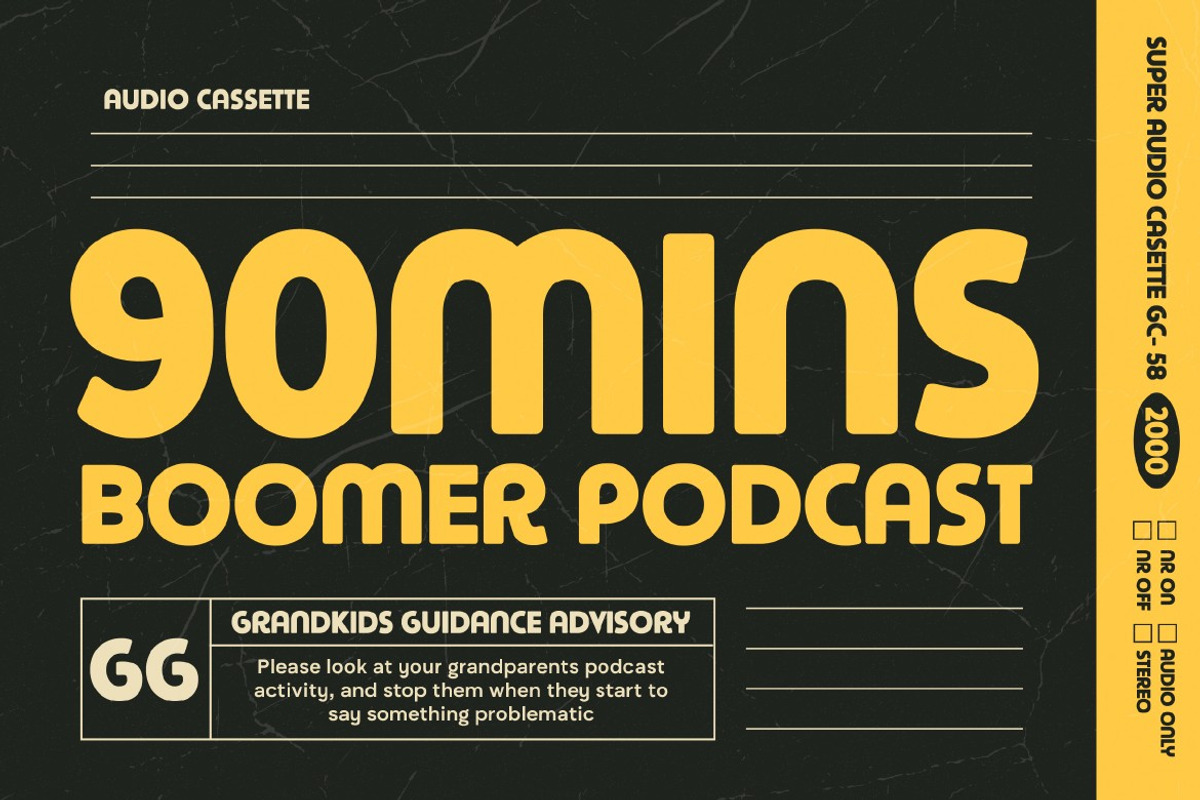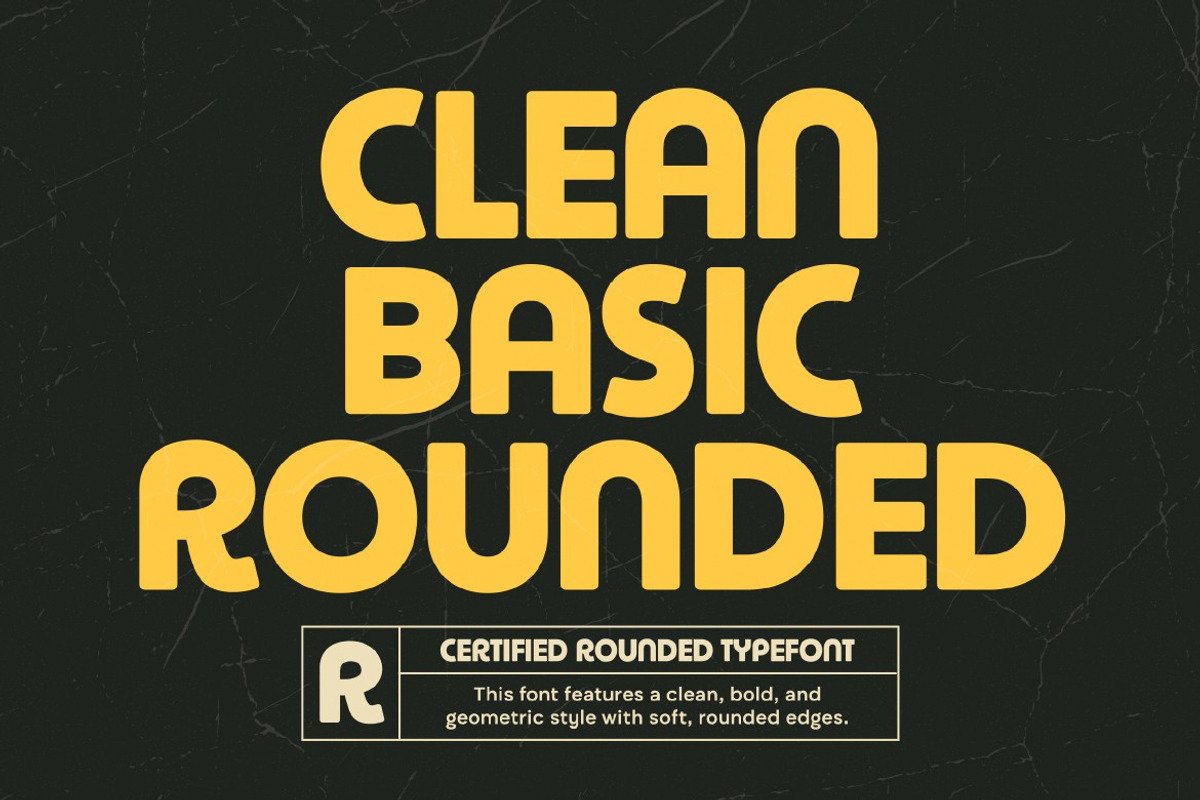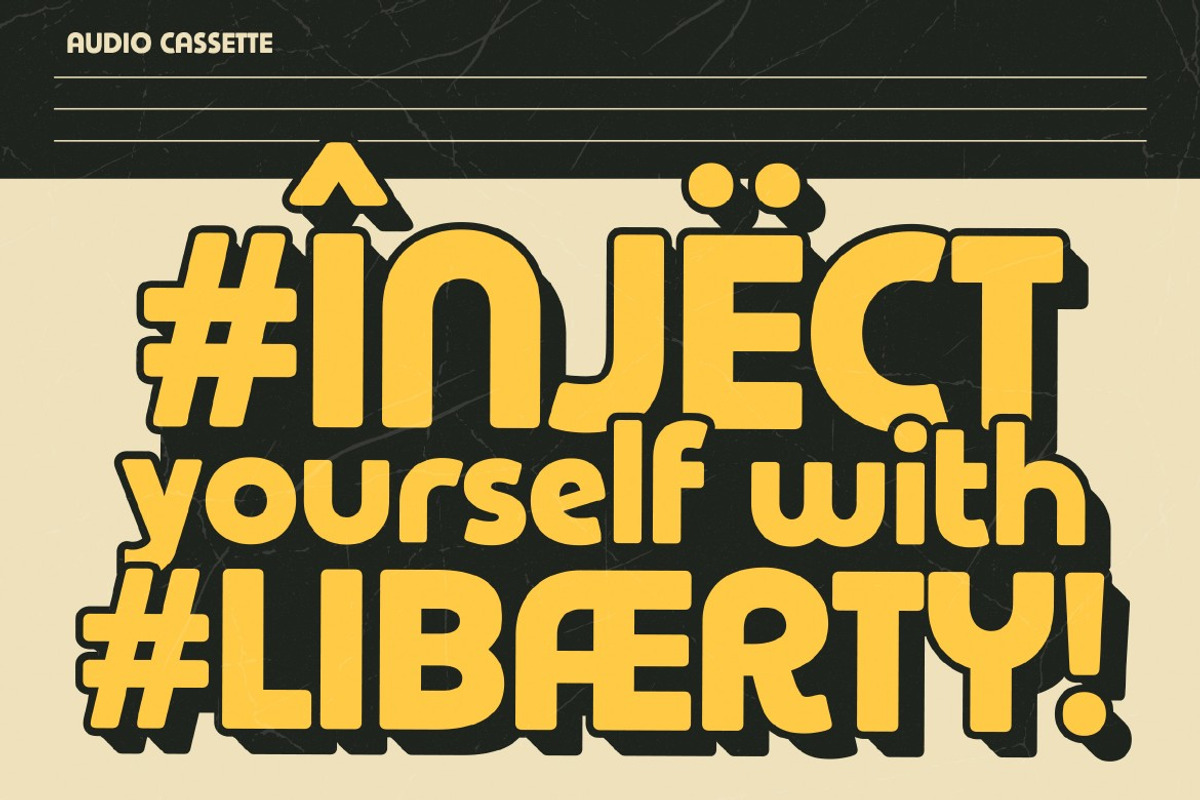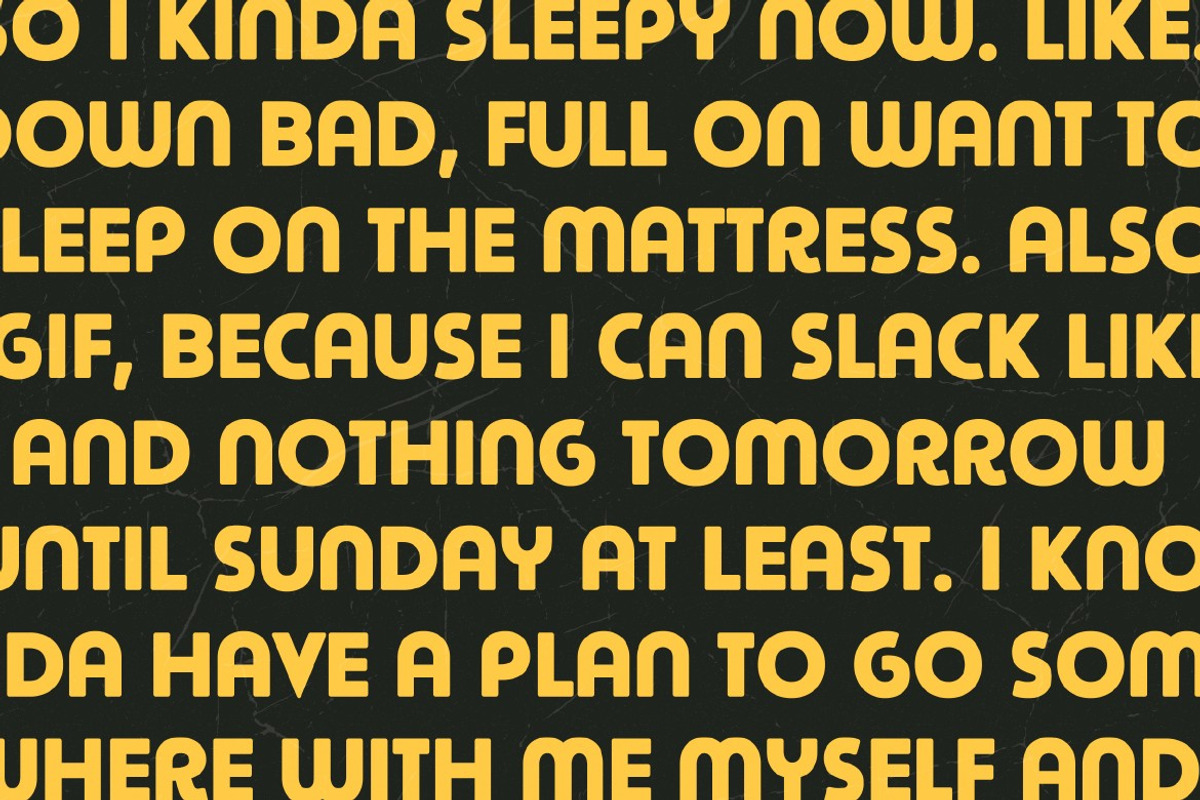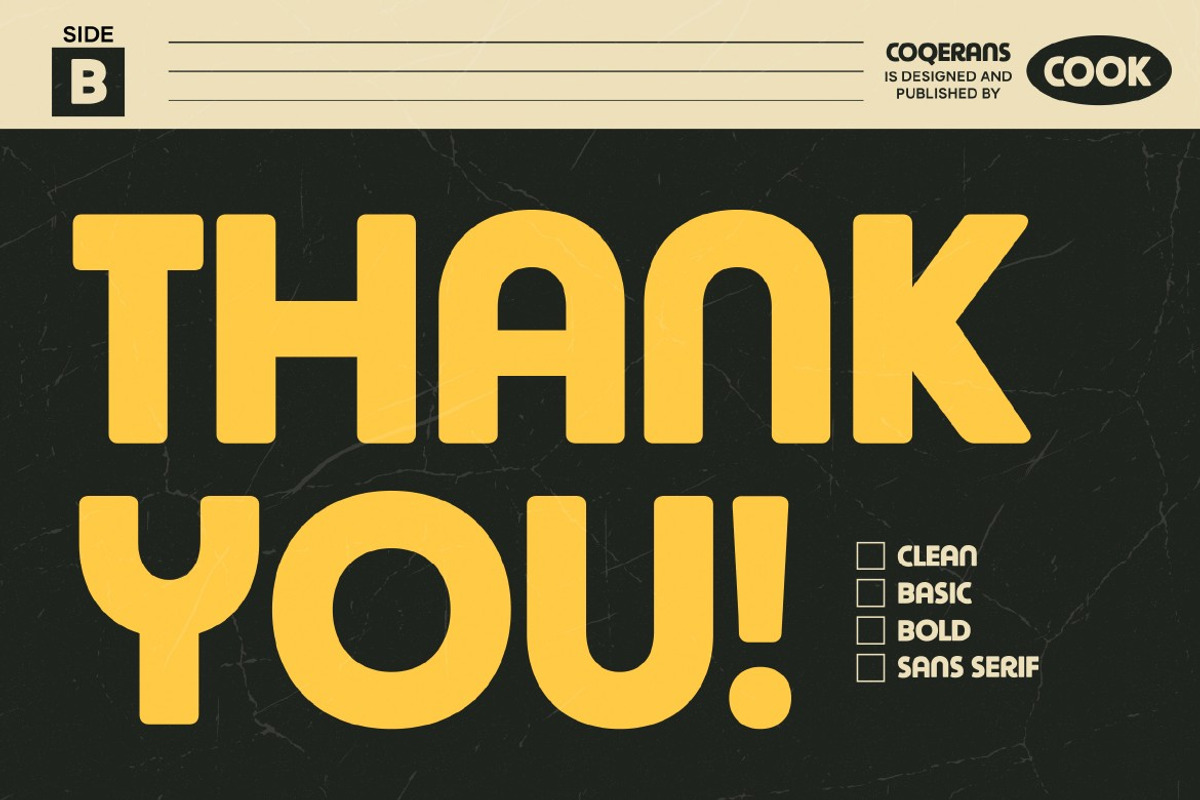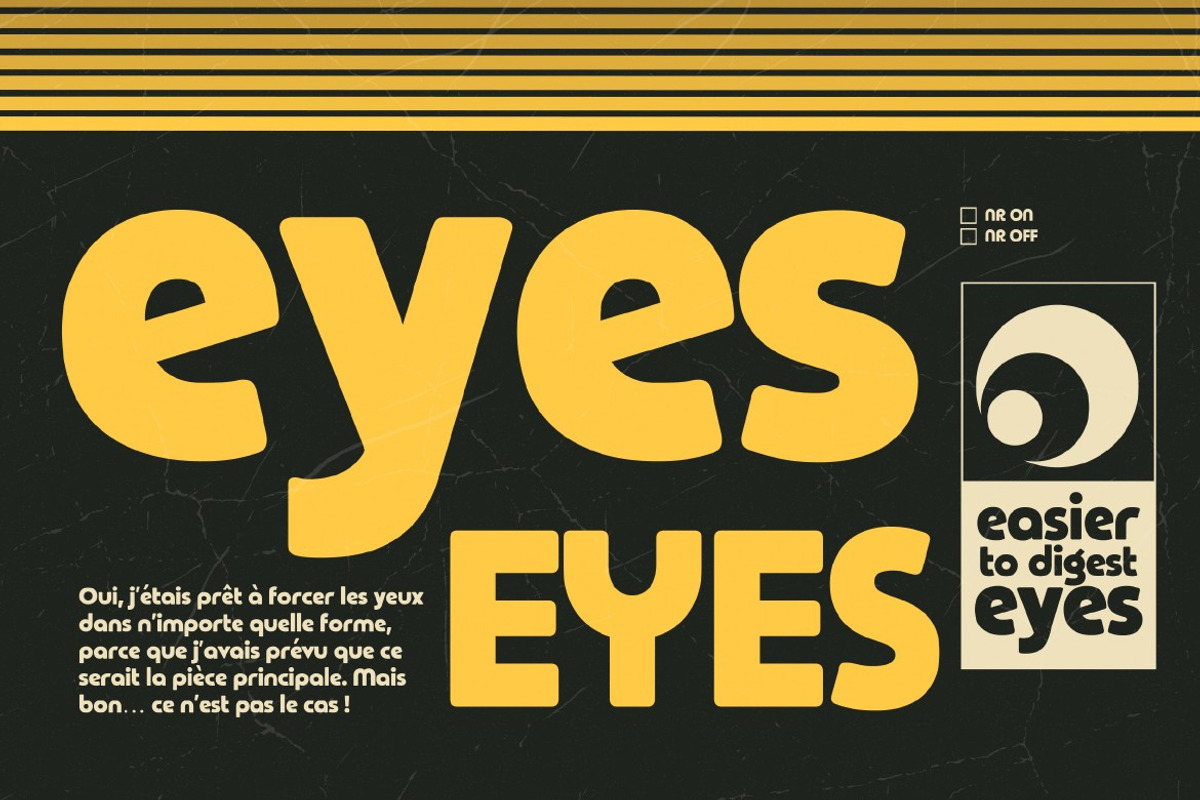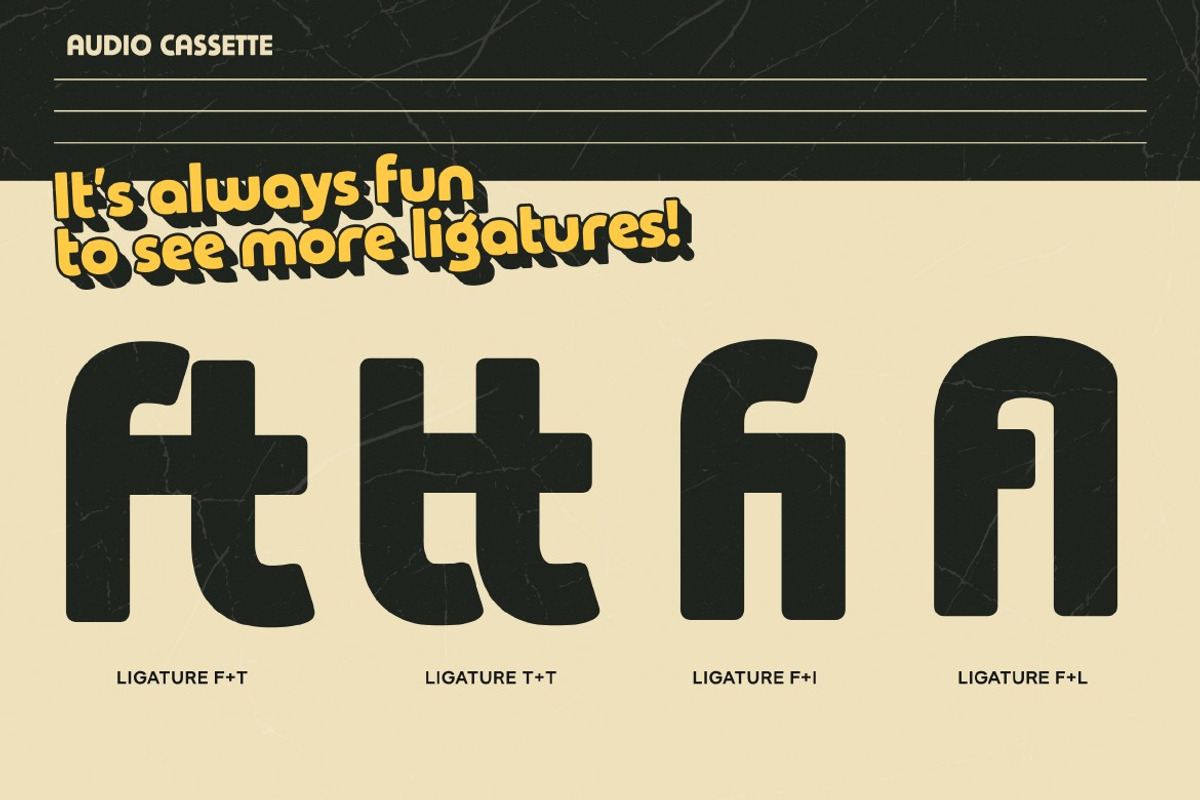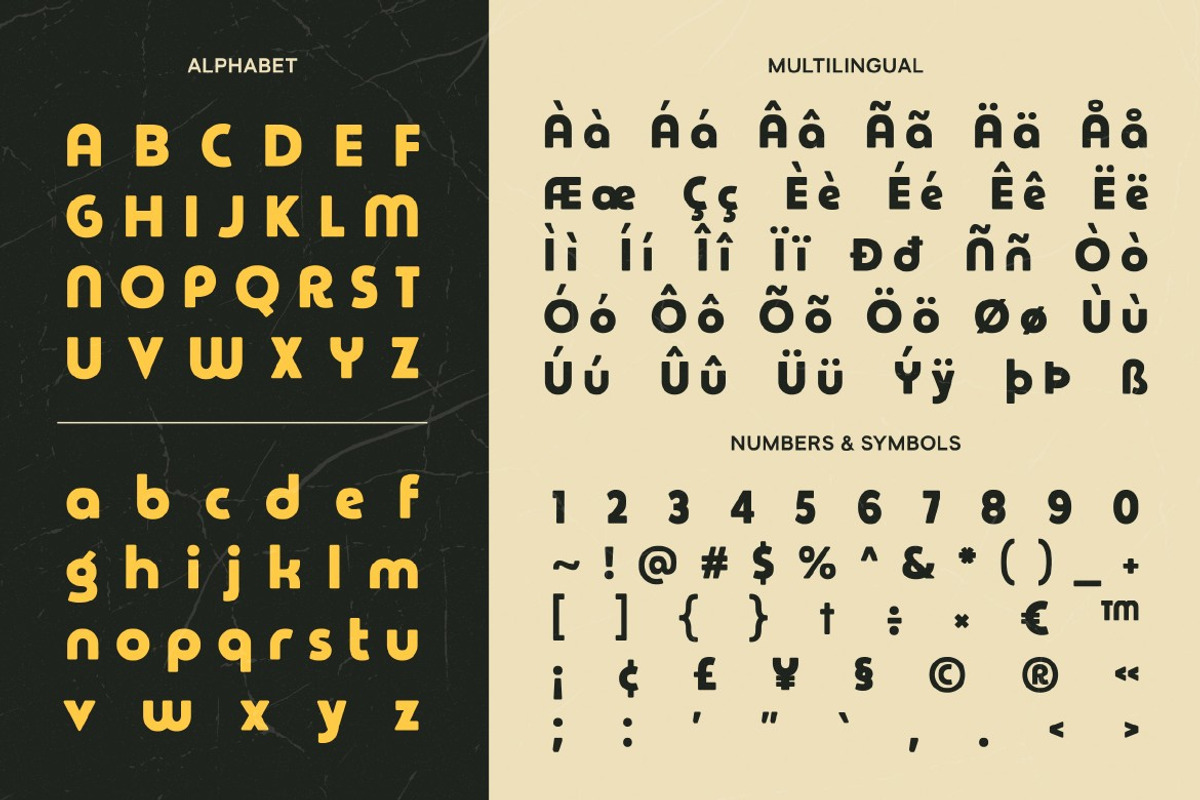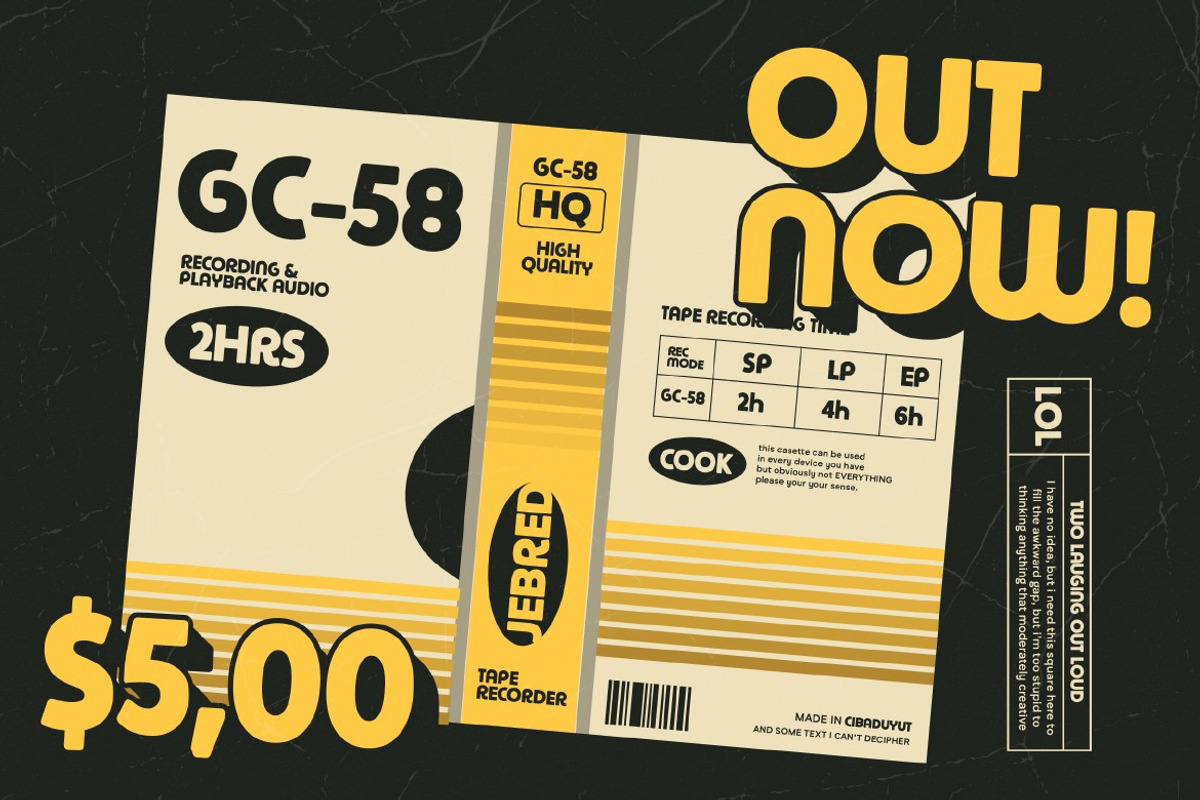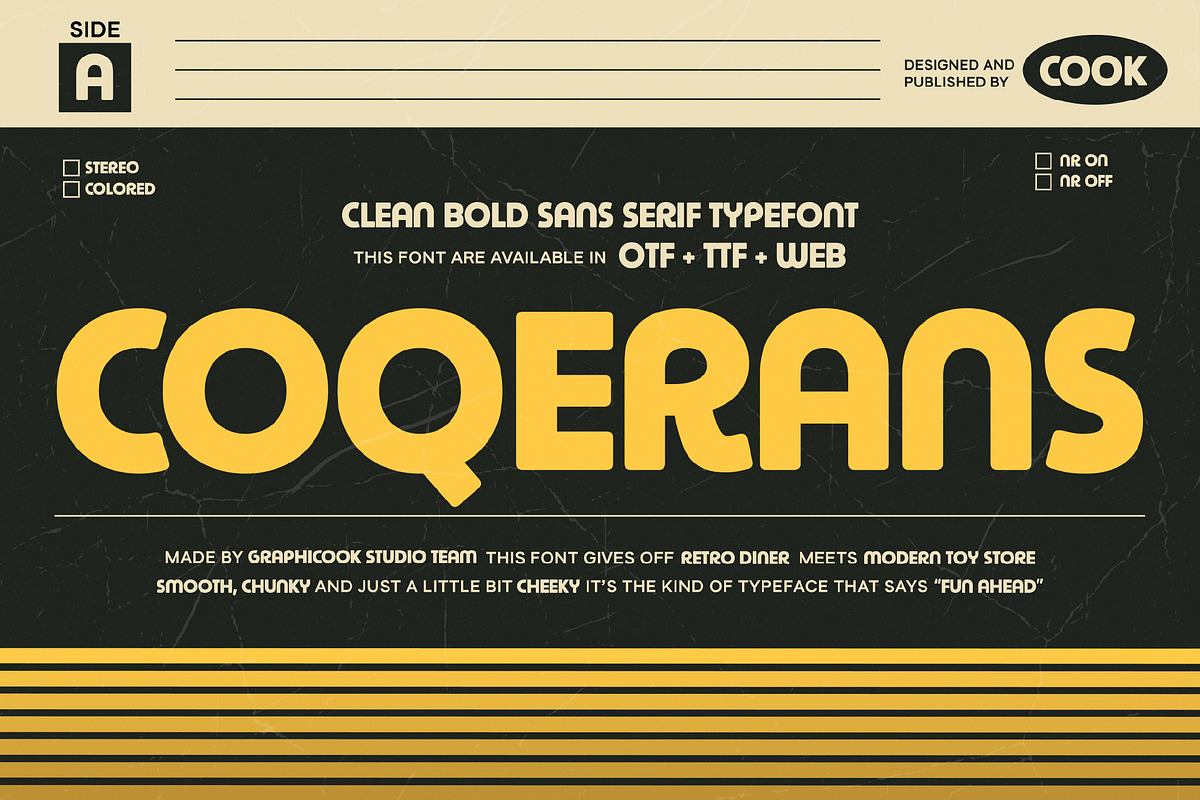
Coqerans
Coqerans is a sans-serif font featuring clean, smooth letterforms with retro influences and a playful modern twist. It’s a great choice for posters, music-themed visuals, and retro-inspired designs.
It is perfect for headlines, logotypes, magazines, packaging, quotes, movies, games, cover albums, book covers, and flyers, it's a perfect solution for creating eye-catching designs that stand out in any context.